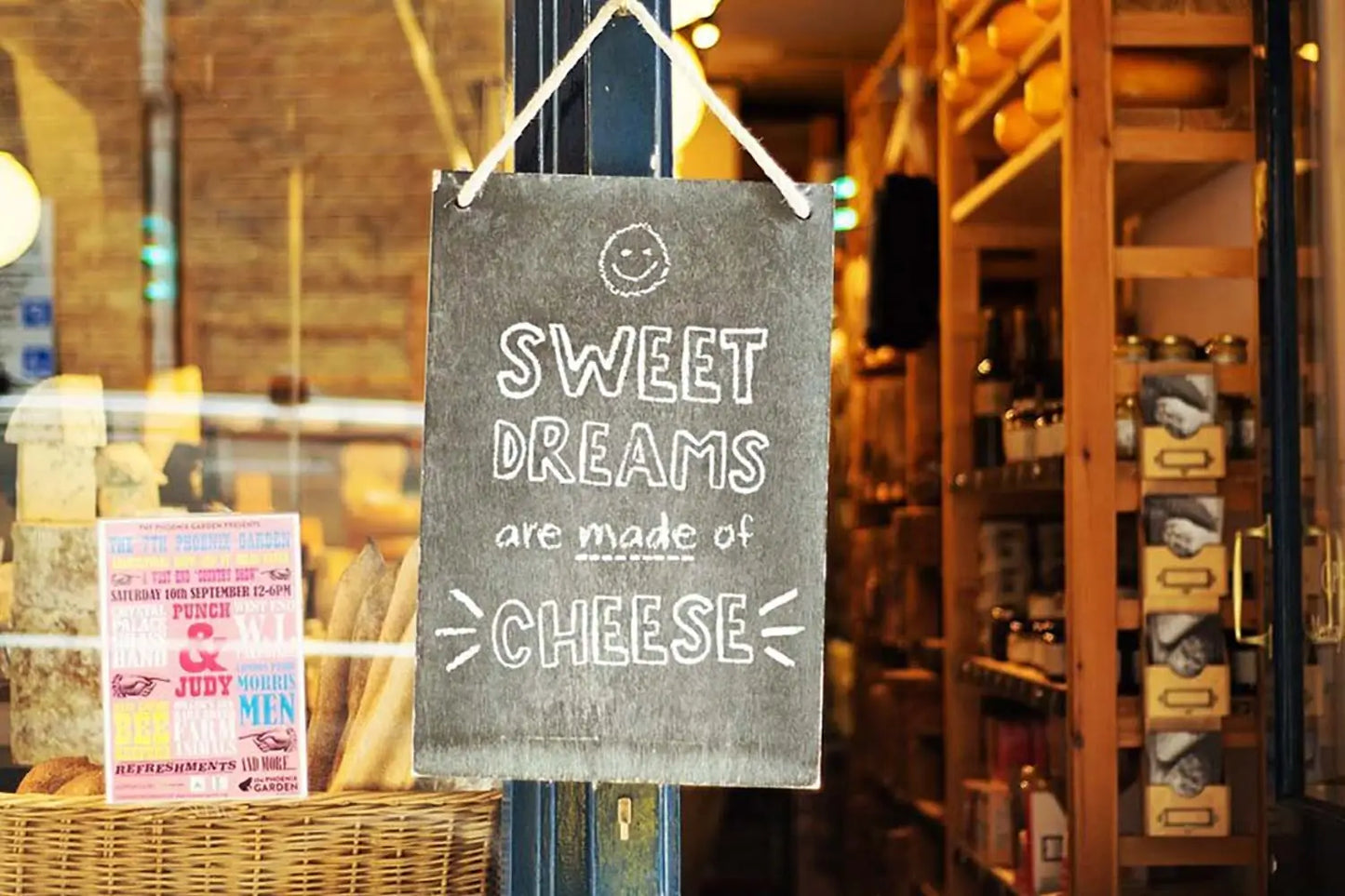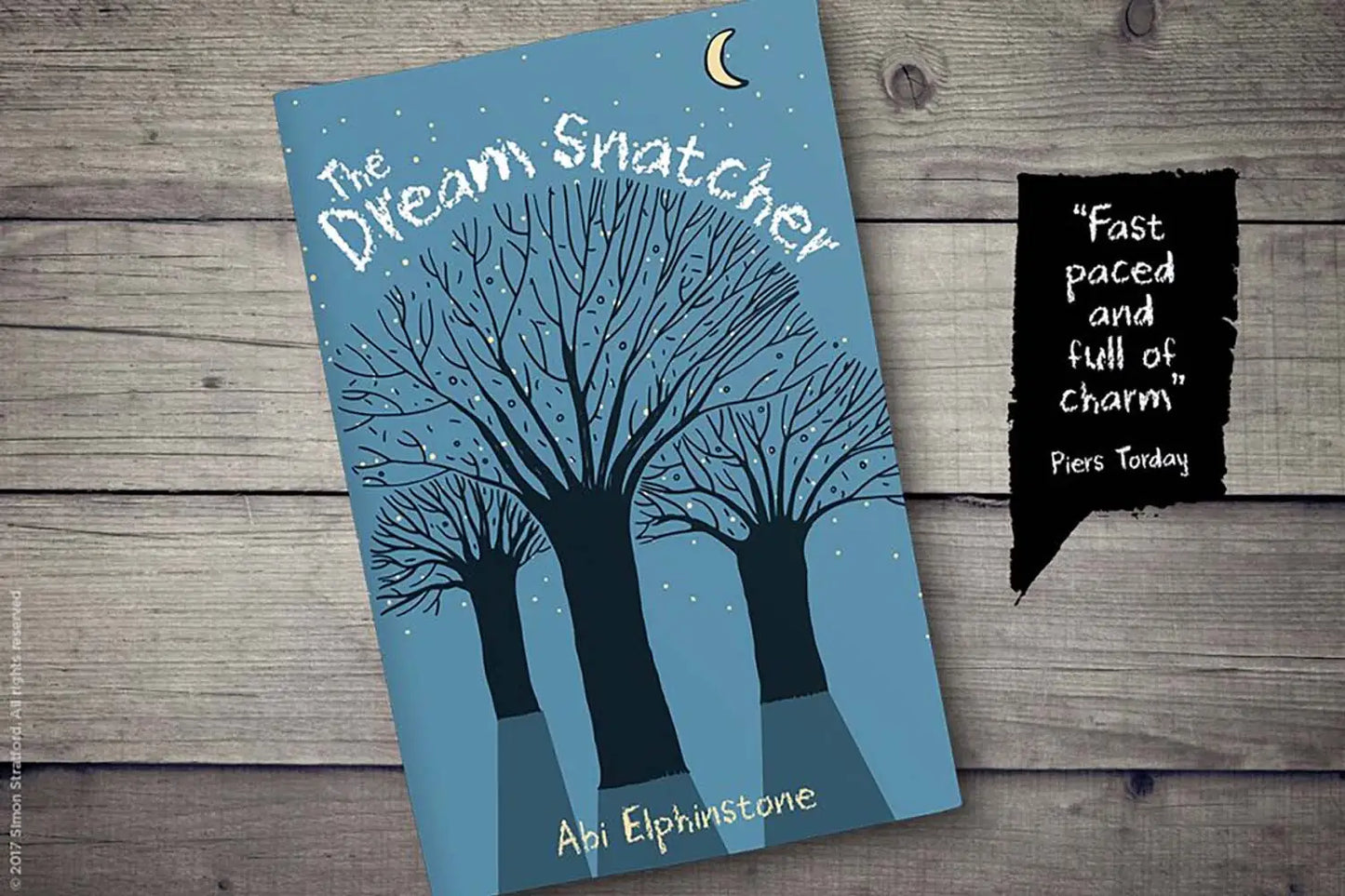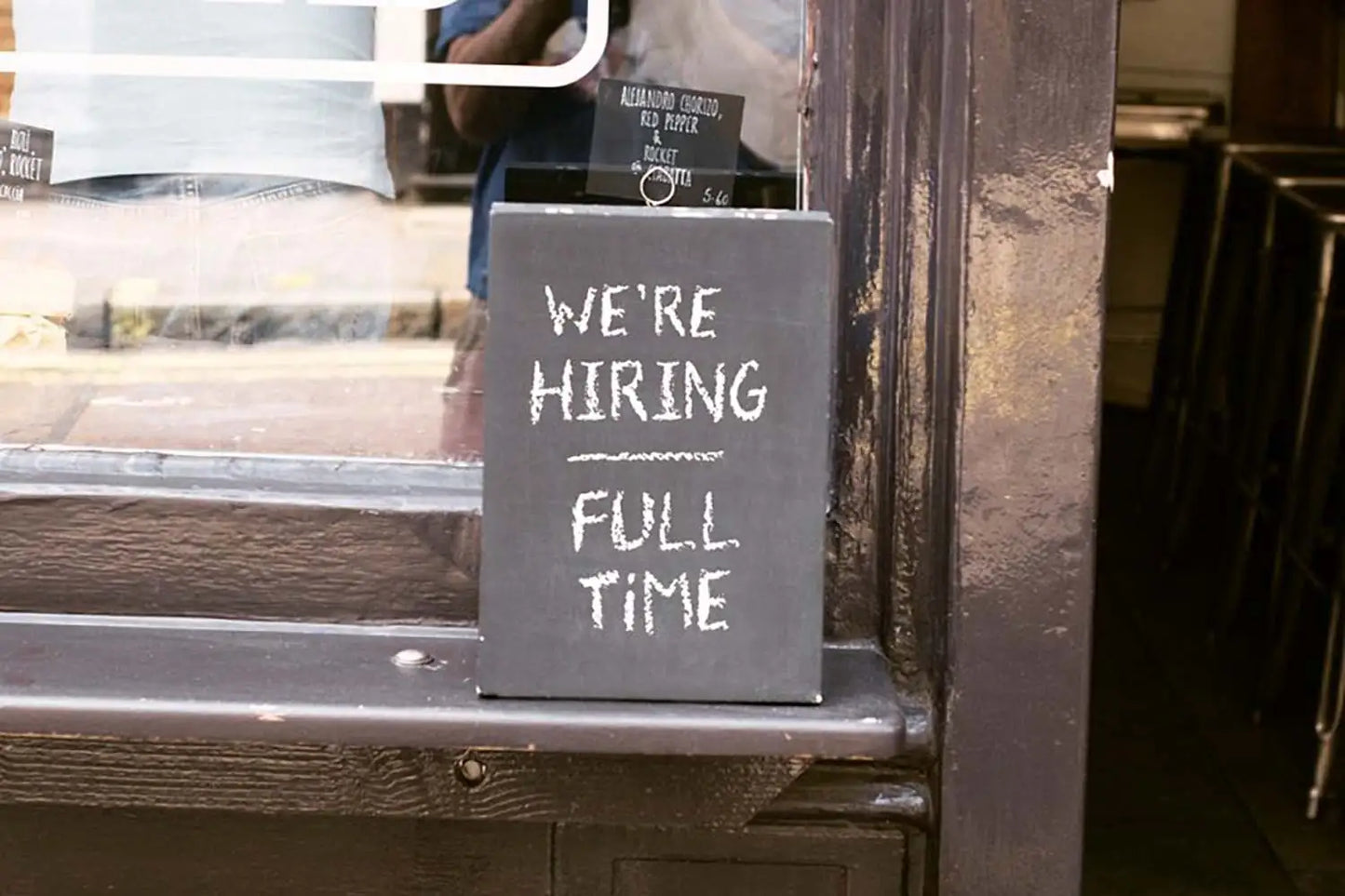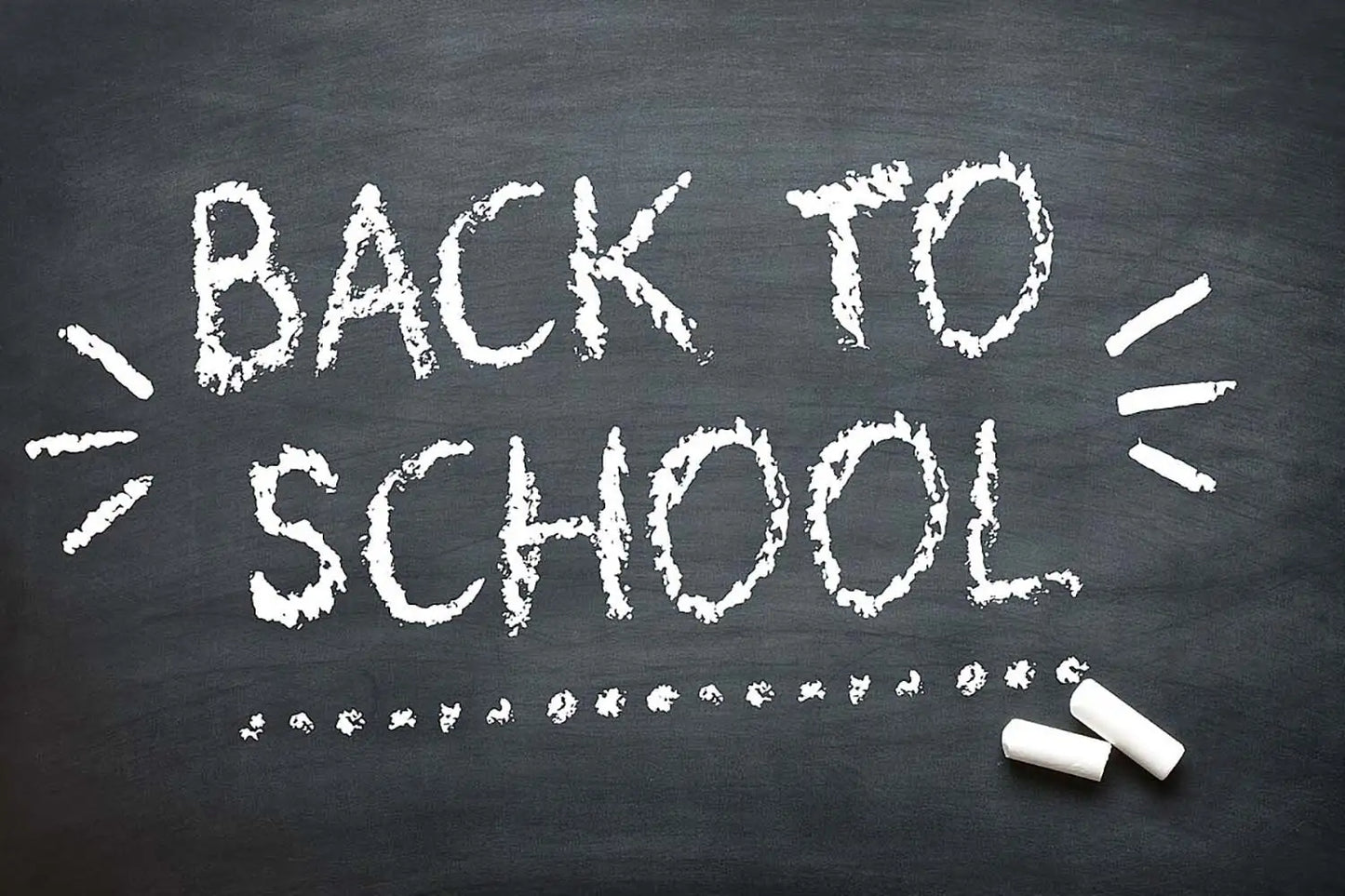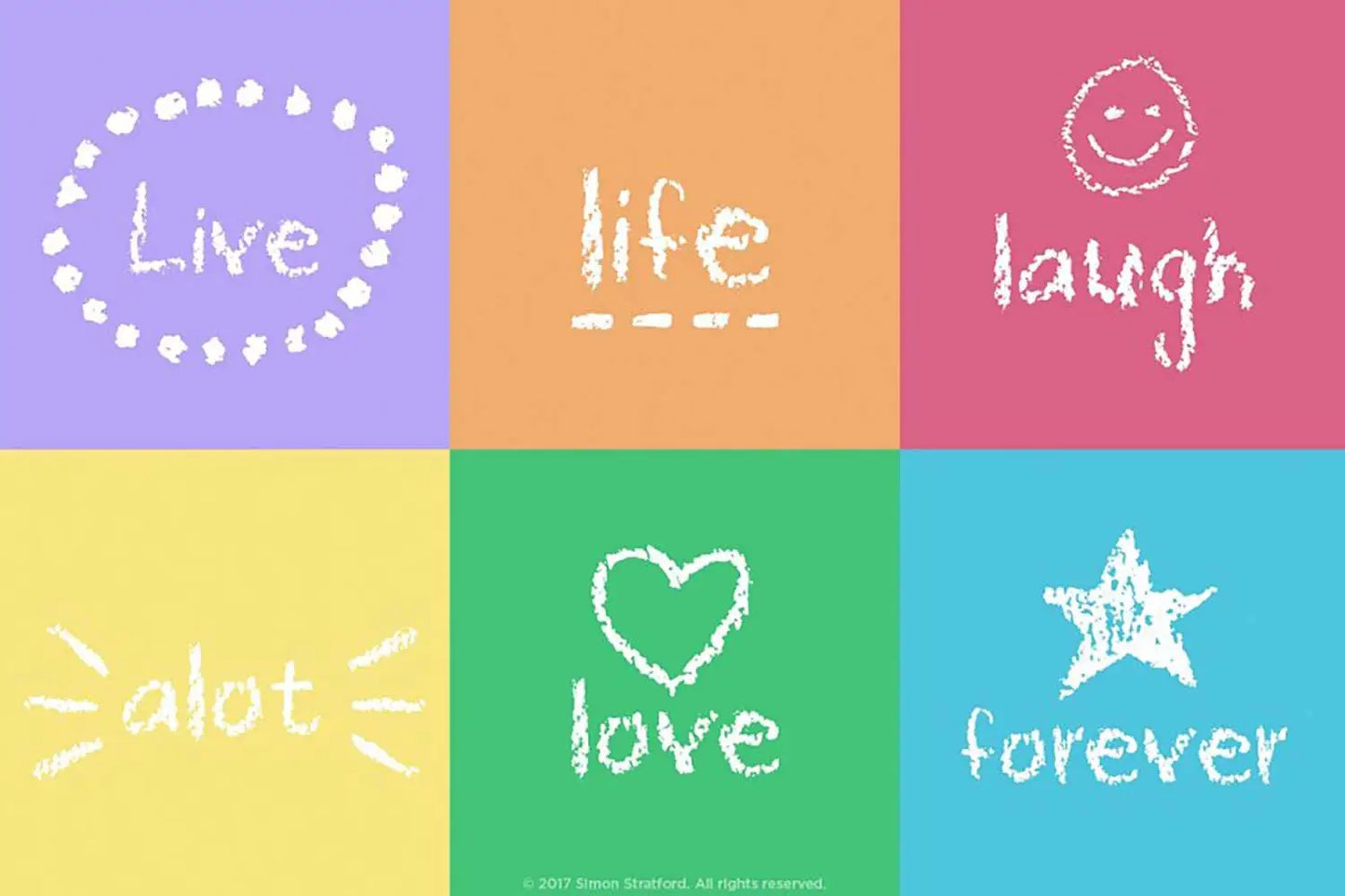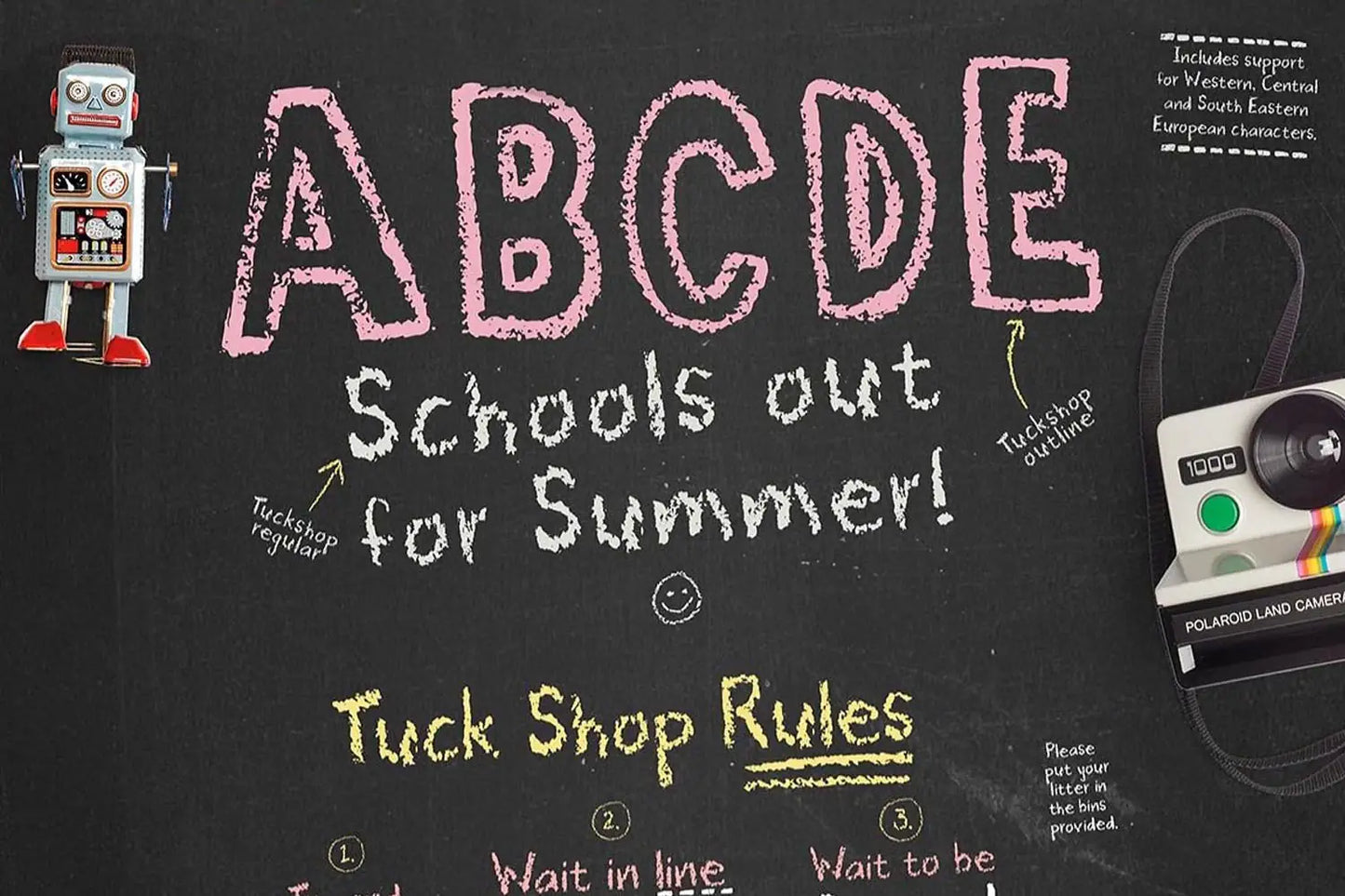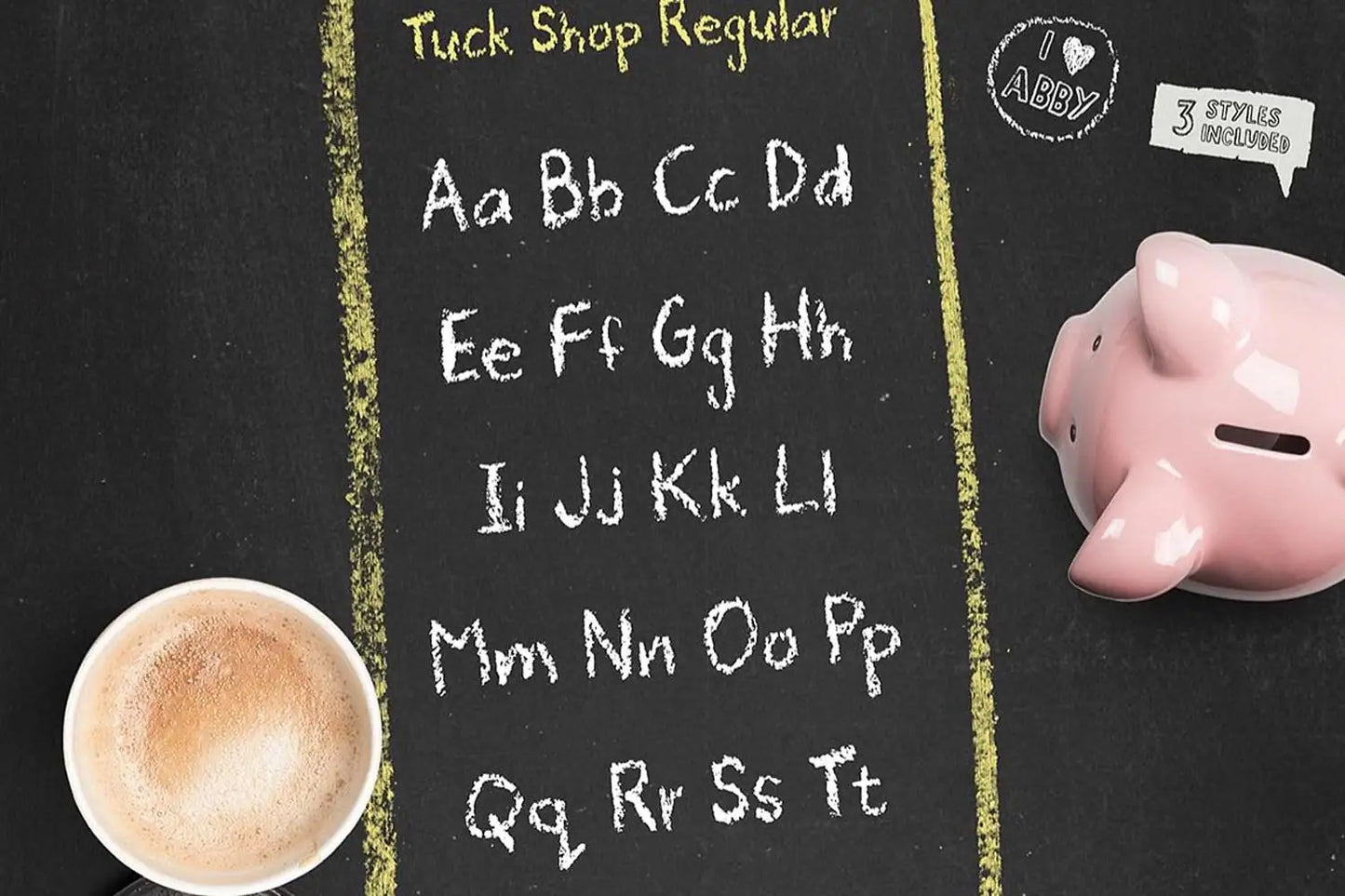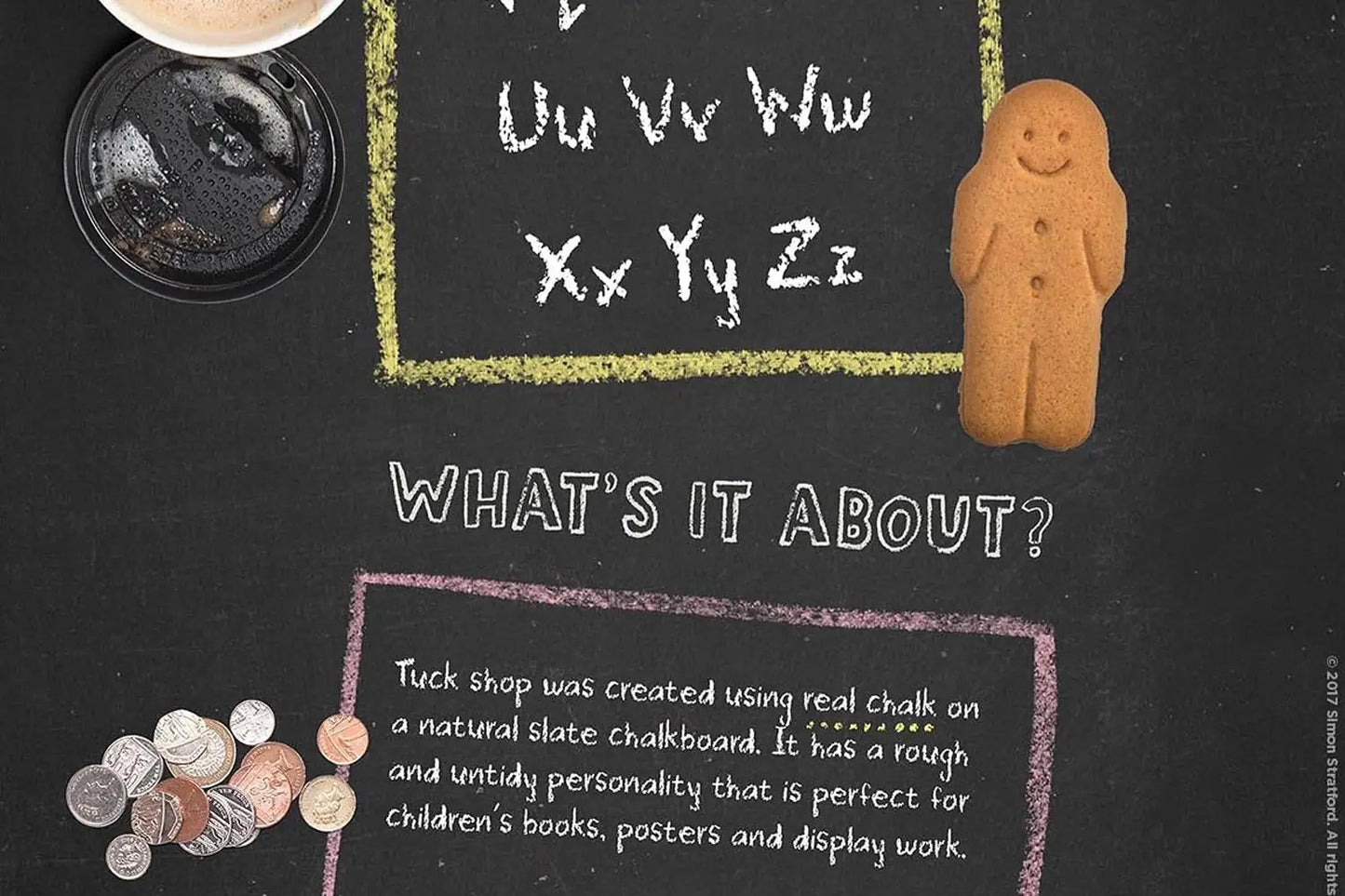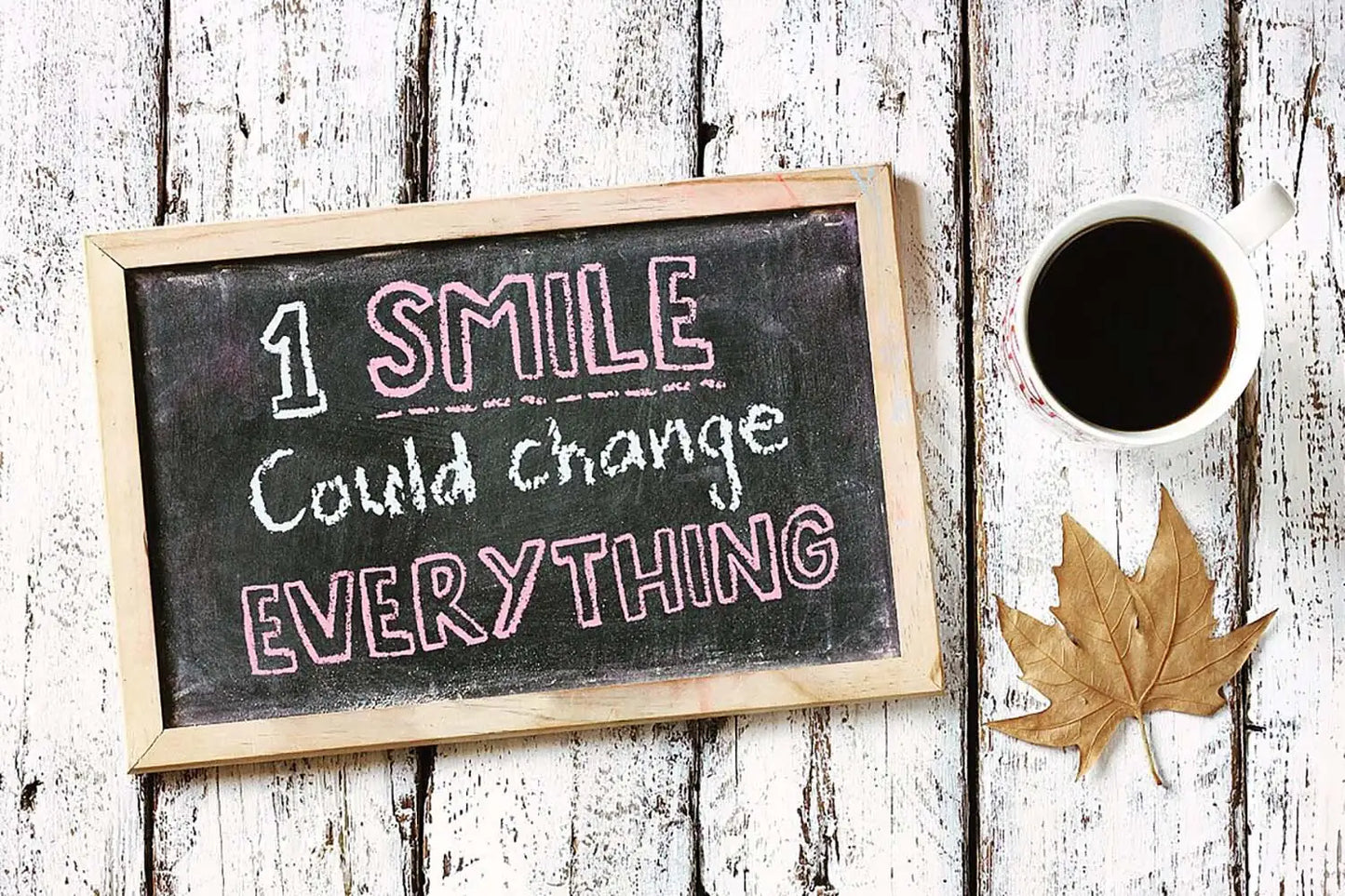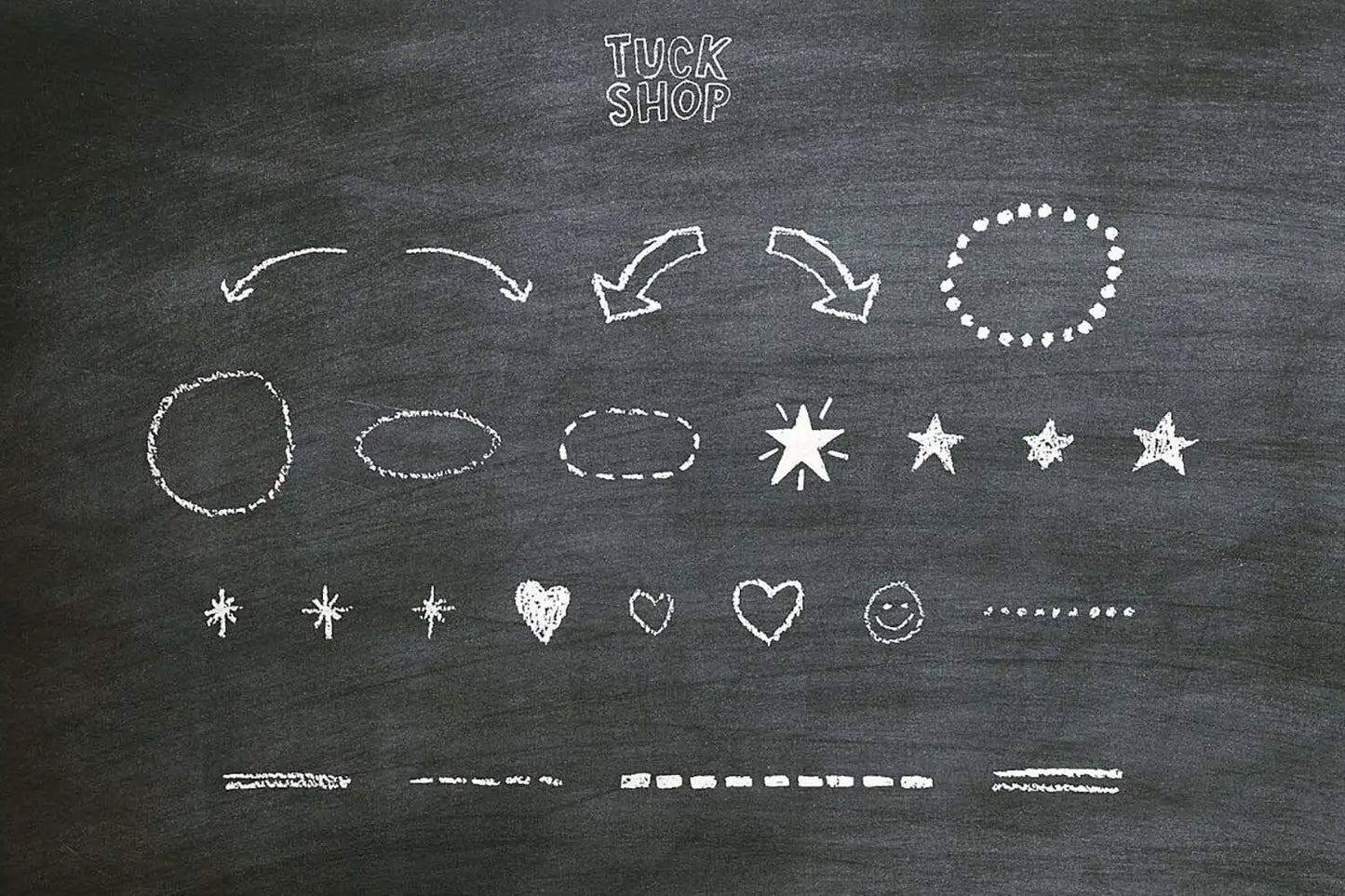
Tuck shop font
About Tuck shop font
I built the Tuck Shop font the old‑fashioned way—real chalk, real slate, real texture. Every letter was drawn by hand on a naturally gritty chalkboard, and every imperfect edge was preserved, even when scaled up. That raw slate surface gives the font its unmistakable grungy swagger.
Despite the roughness, Tuck Shop has a playful, childlike charm. It slips effortlessly into creative projects: children’s books, bold packaging, lively display graphics—anything that needs personality and a wink of nostalgia.
It feels like the lettering you’d find outside cosy cafés, bustling bars, or hipster bakeries. Using it instantly conjures that warm, welcoming, slightly retro vibe, adding a hit of authentic character to whatever you’re making.
If Tuck Shop were a food?
It would be a rustic, hand‑shaped artisan sourdough loaf—crackly crust, soft centre, and proudly imperfect.